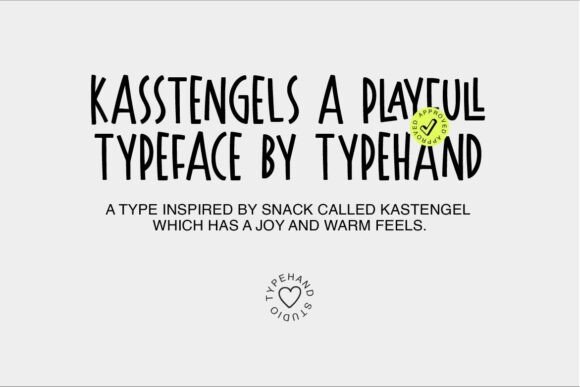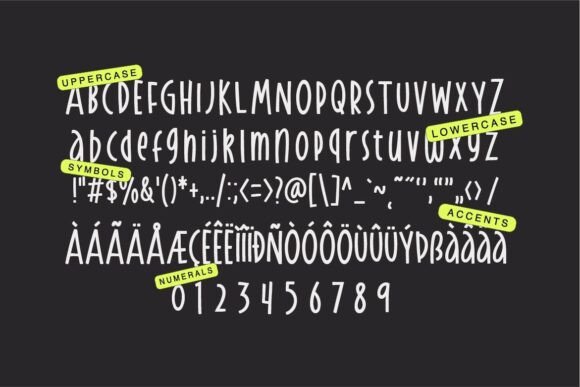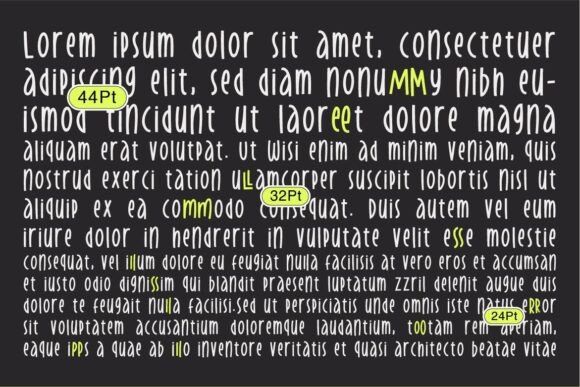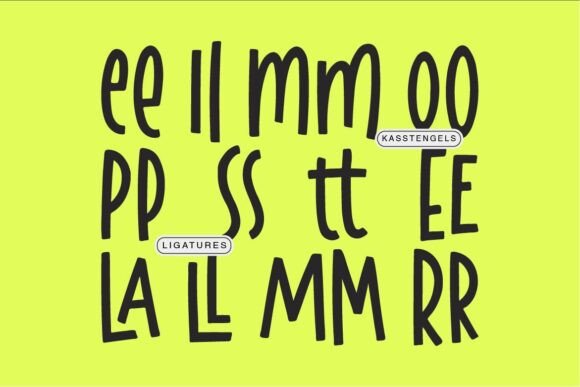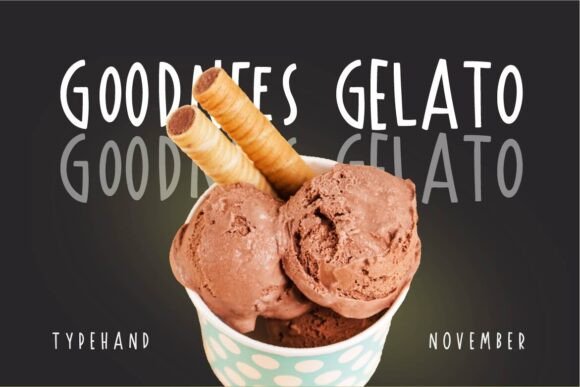
Introduction to Kasstengels Font
Say hello to Kasstengels, a whimsical and cheerful typeface designed to add a splash of fun to your creative projects.
With its hand-drawn appearance and lively characters, this font is perfect for anything from childrenโs books to playful branding and vibrant graphics Kasstengels have Expressive Ligatures that can enhance the flow of your text with built-in ligatures, making your typography more cohesive and engaging.
Key Features of Kasstengels Font
Why Choose Kasstengels Font?